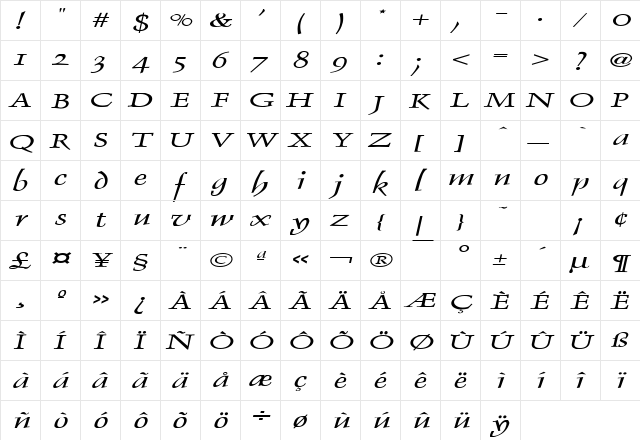
Dolphin Extended Italic Font Preview
Dolphin Extended Italic
Design Context for Dolphin Extended Typeface
Dolphin Extended is a composed and adaptable typeface that performs quietly and consistently across a wide range of design contexts. The dynamic lean of this cut emphasises speed and emphasis in any layout.
Pro Tip: Try Dolphin Extended for annotation and caption copy alongside an upright companion — the contrast in angle creates a dynamic but ordered typographic system.